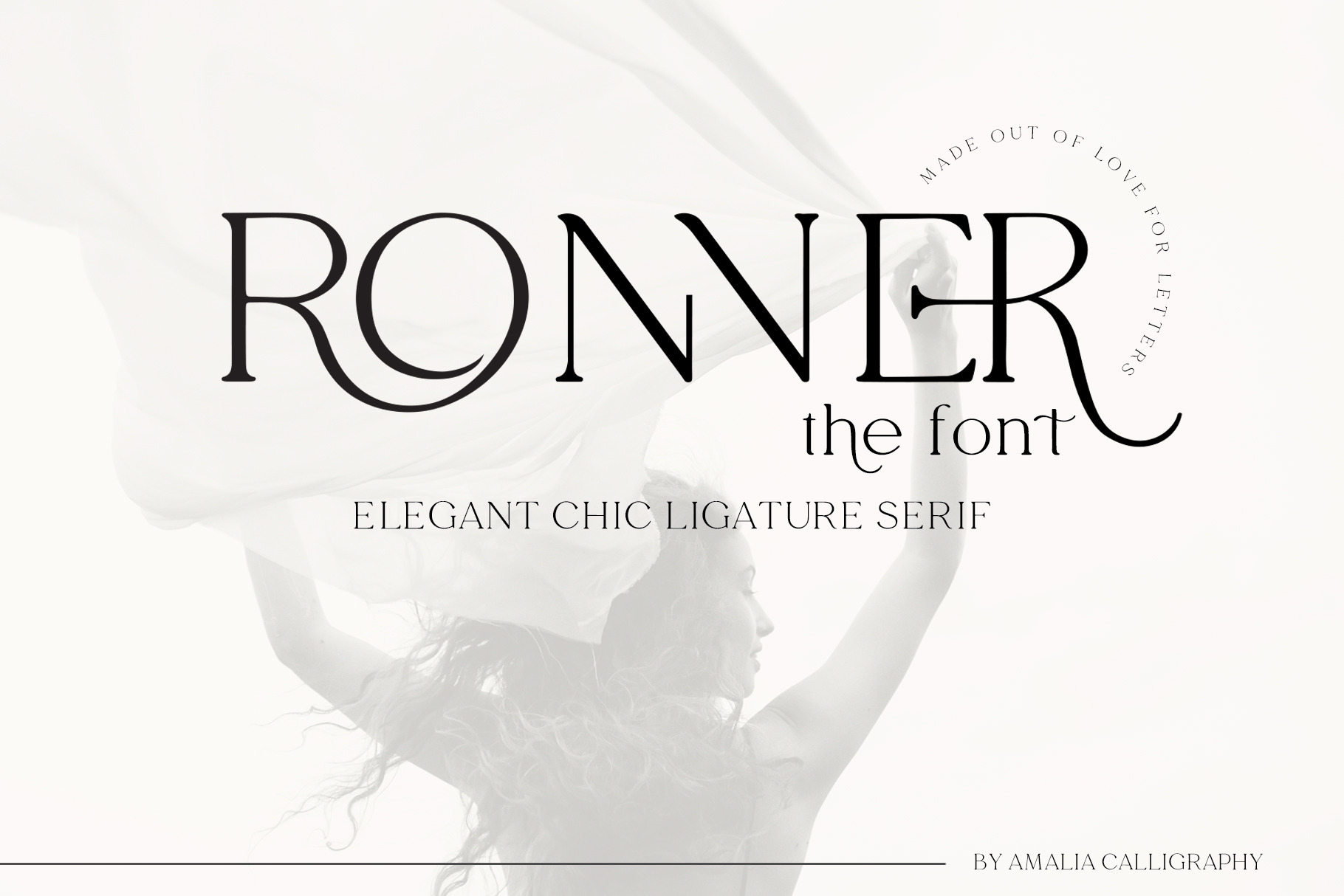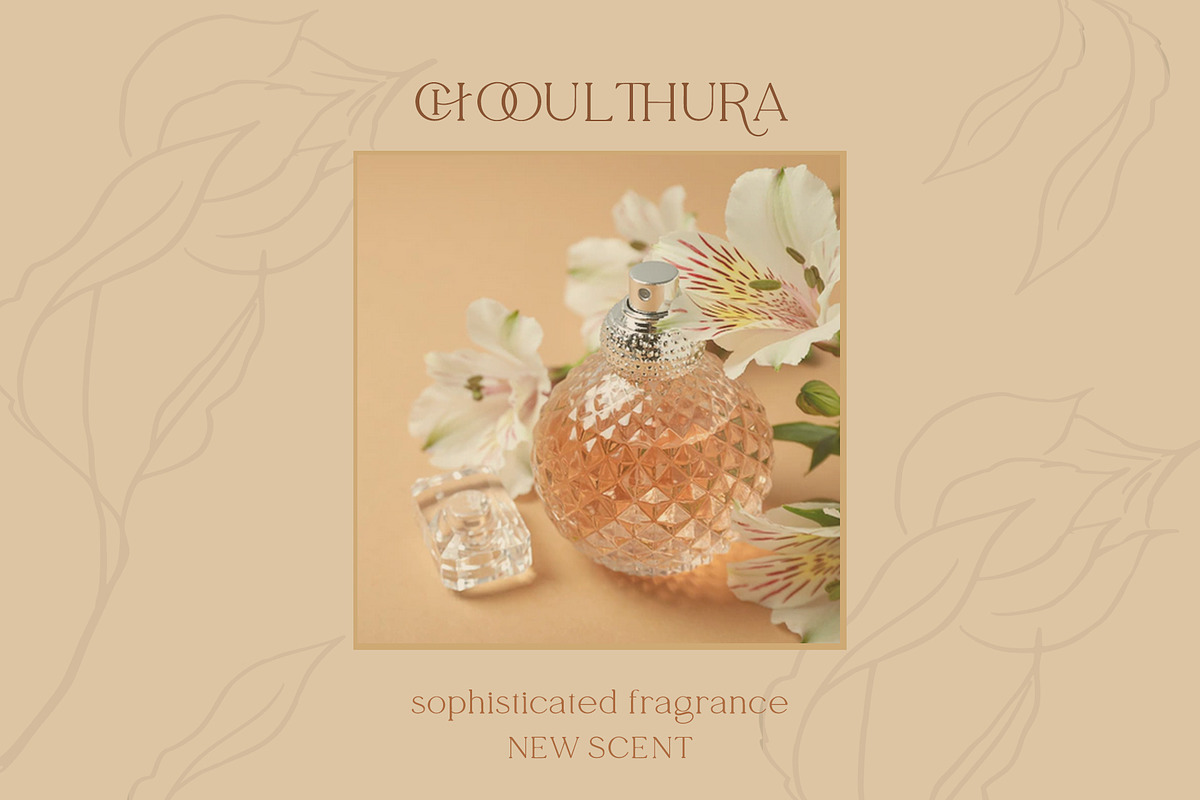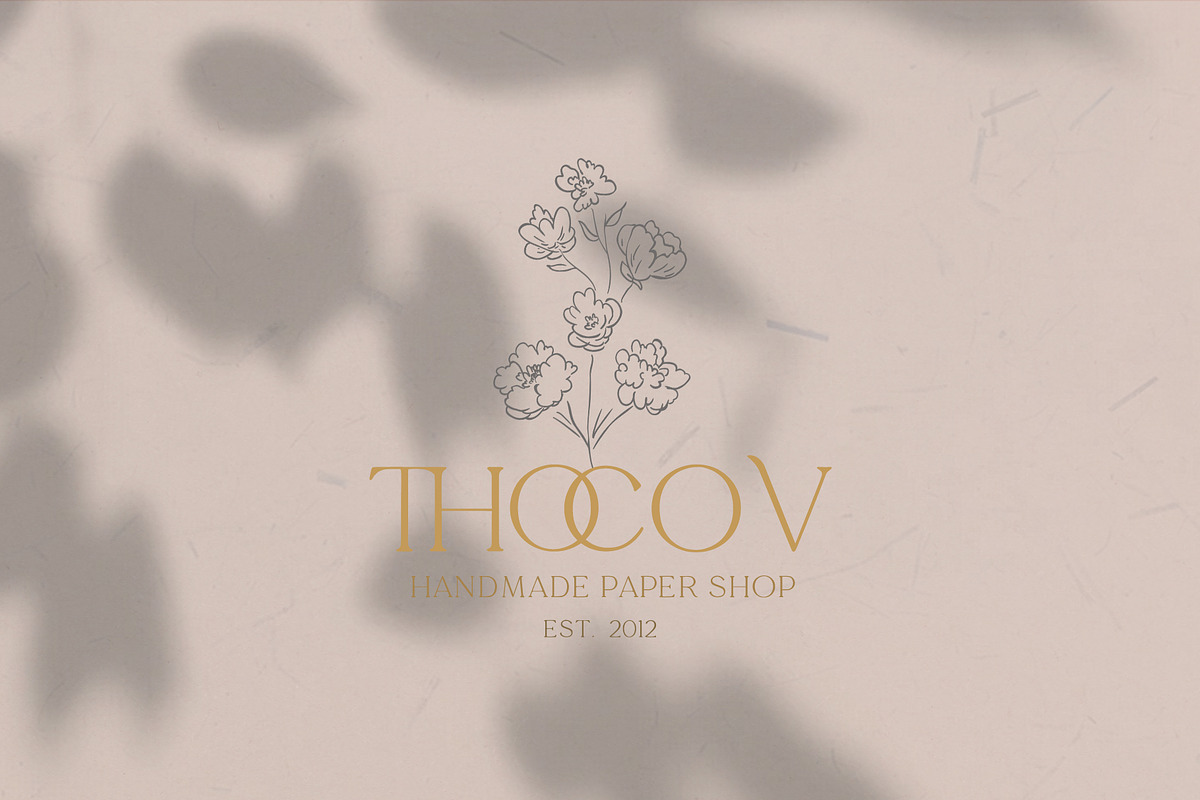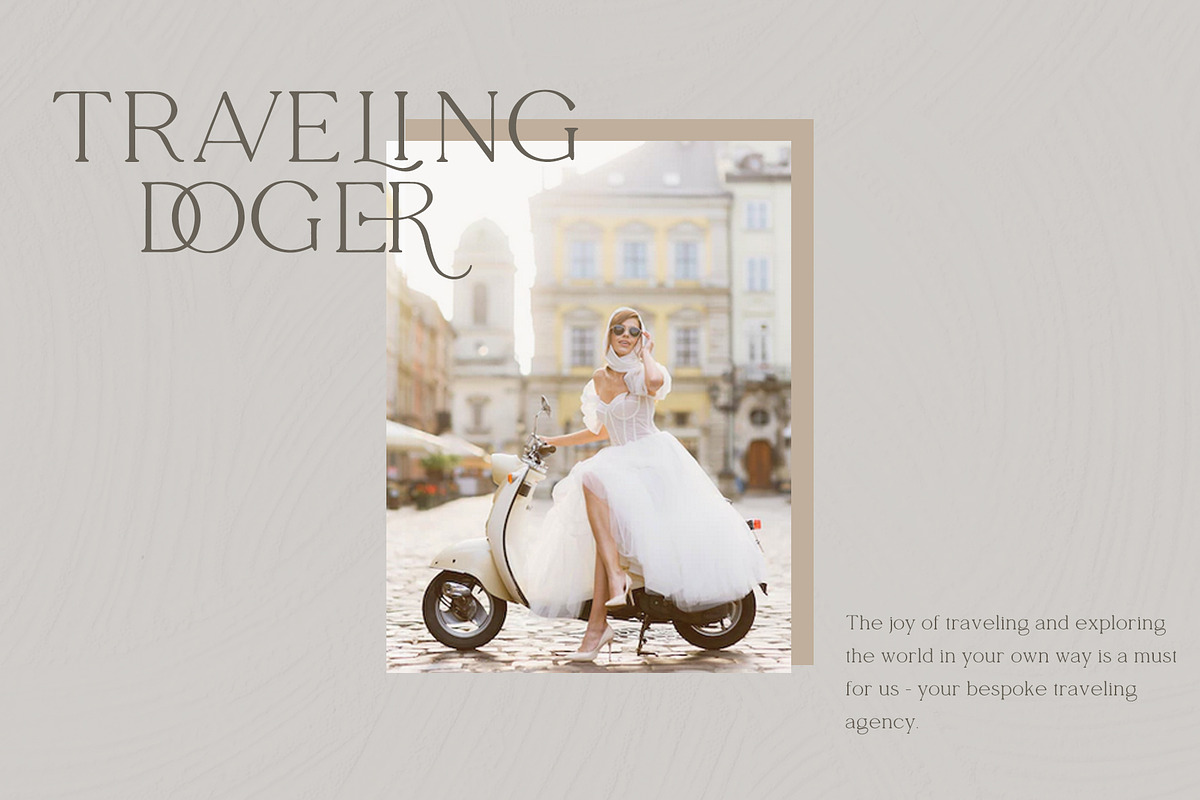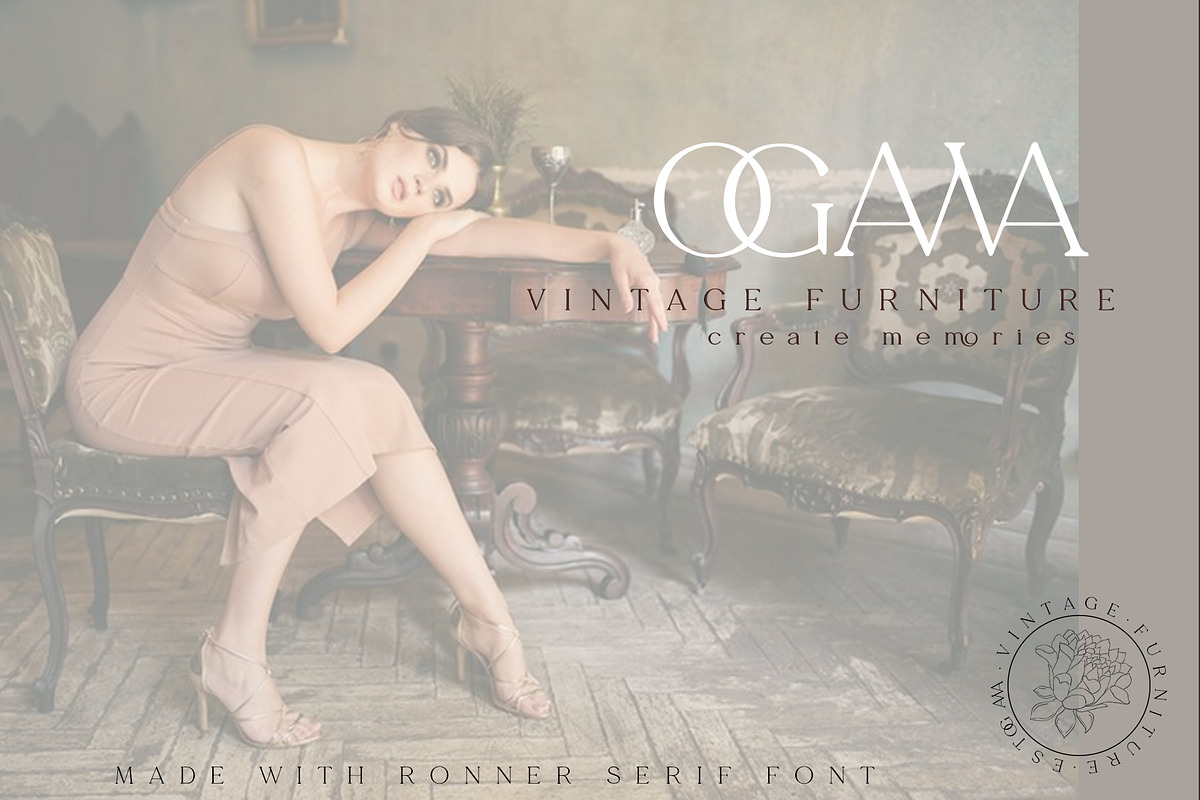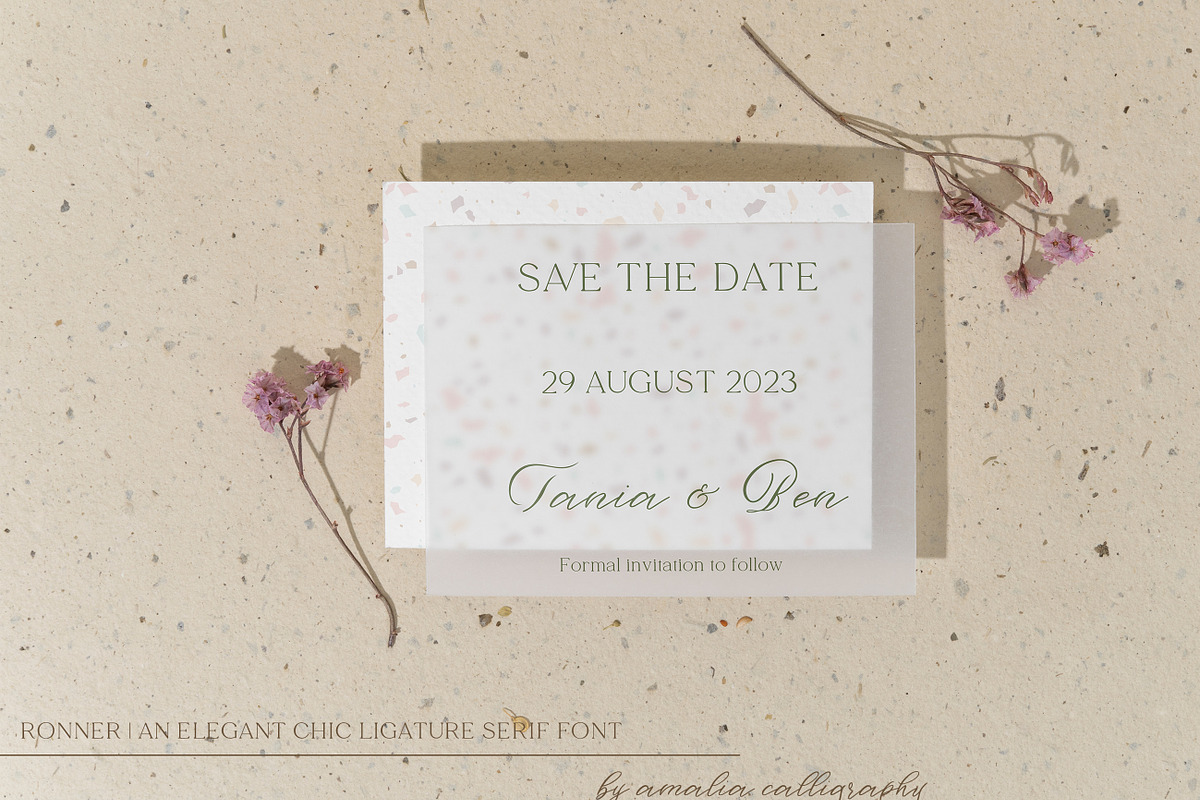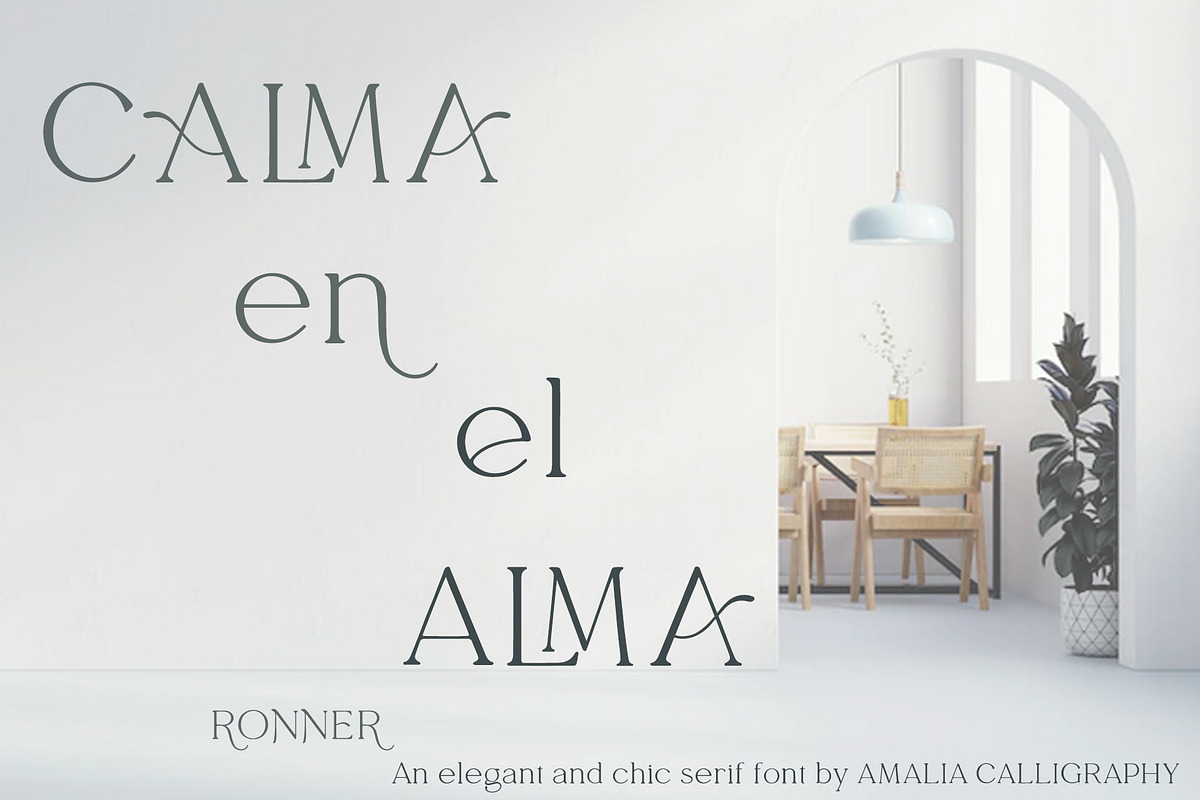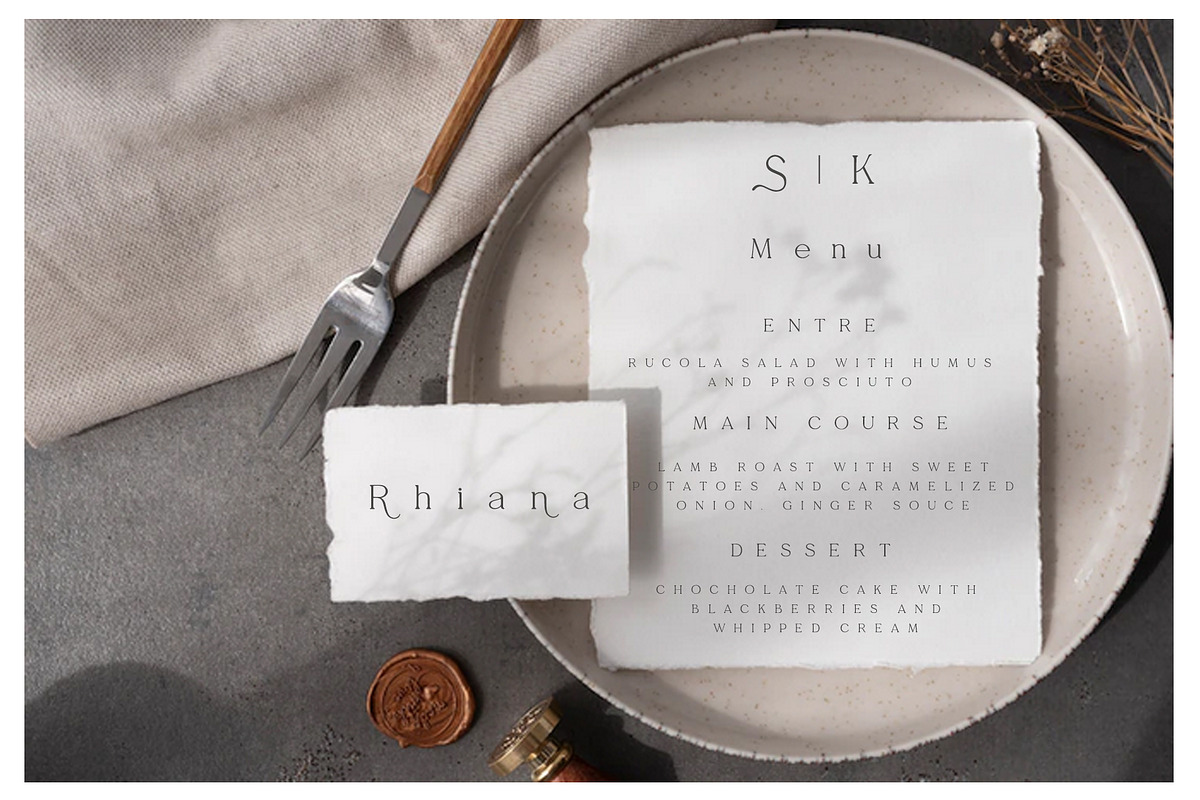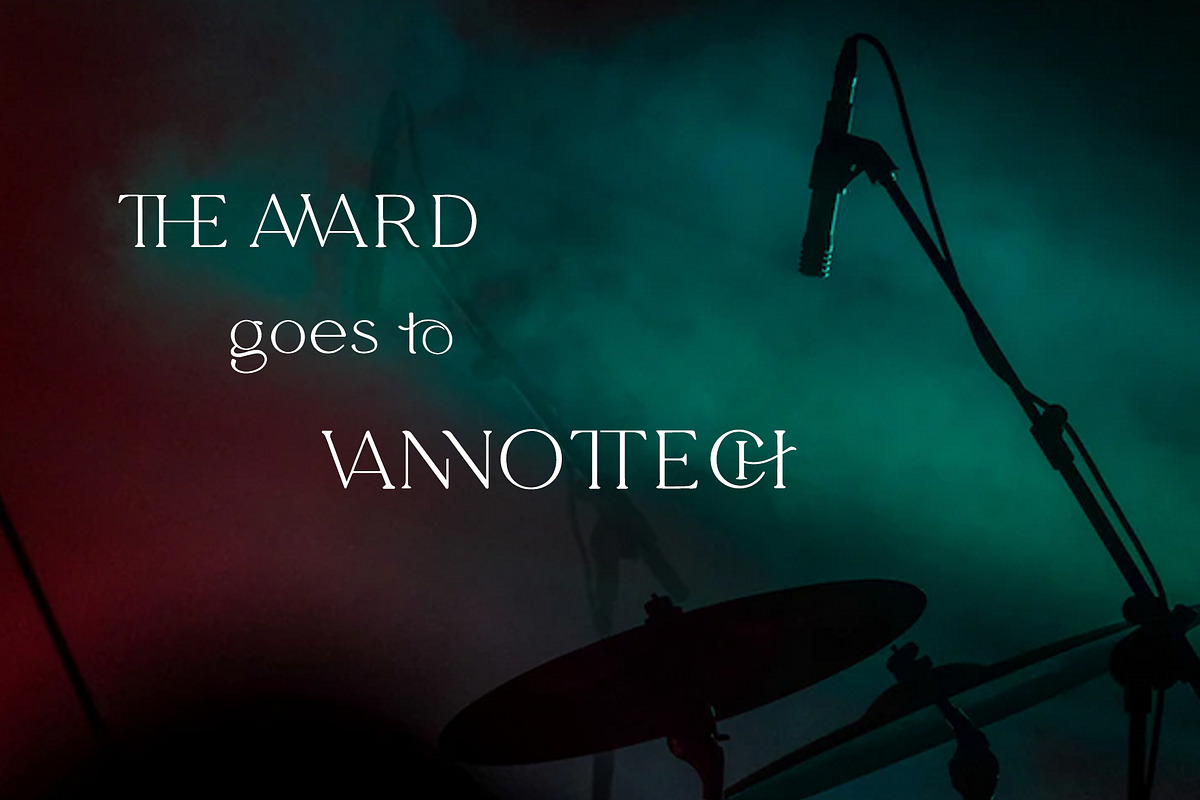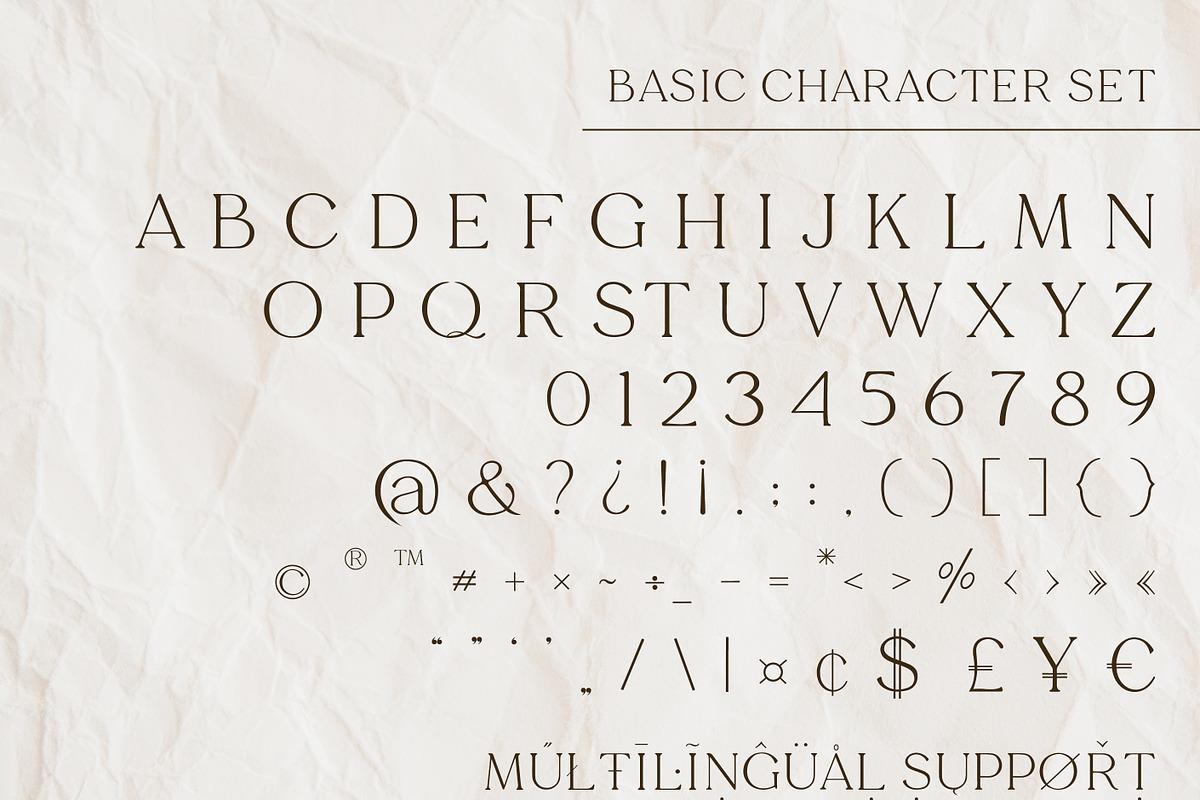
RONNER | Elegant Ligature Serif Font
Introducing our elegant ligature serif font - RONNER.
This modern serif font is for those who are looking for an elegant, yet natural font, well suited for wedding stationery, branding, monograms, social media, prints and other creative projects. Ronner is a clean, full-featured, PUA encoded serif font with alternate characters and OpenType features. Alternate characters can be accessed by enabling ‘stylistic Alternates’ in any software that supports OpenType. Hand-lettered first and made out of love for letters, Ronner reflects the beauty of simple and clean letters. To add a custom touch to it, we created a set of 30 discretionary ligatures for you to play around, 32 variations for uppercase an lowercase letters and 4 standard ligatures.
- Full set of Uppercase and Lowercase Basic Characters
- Numbers and Punctuation
- 30 Discretionary Ligatures
- 32 variations for uppercase & lowercase letters
- 4 Standard Ligatures